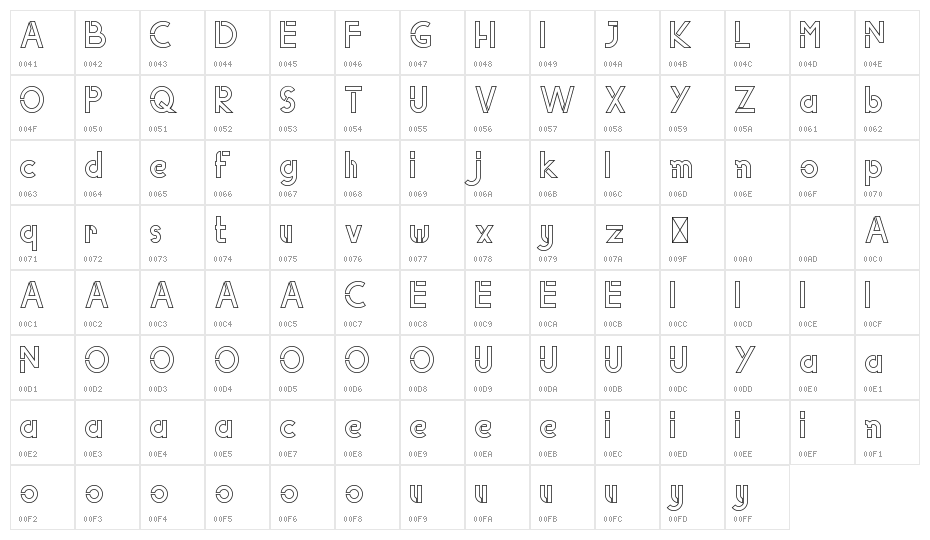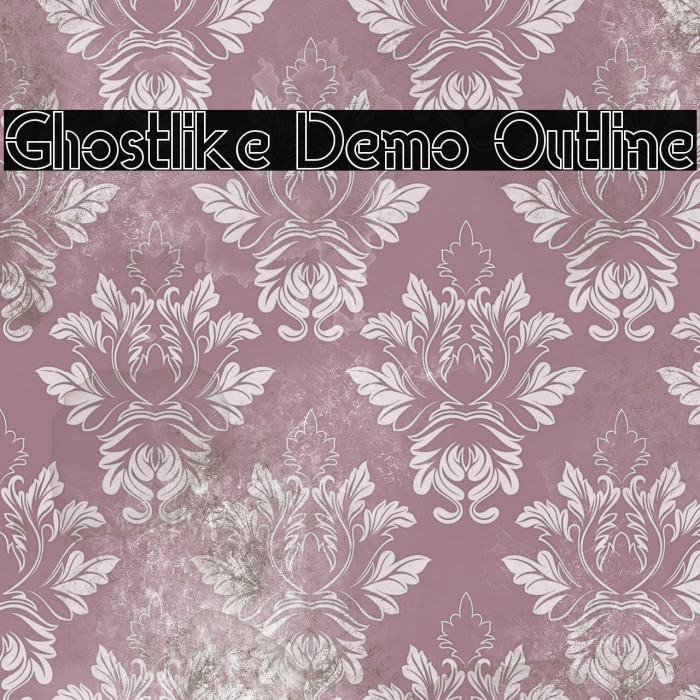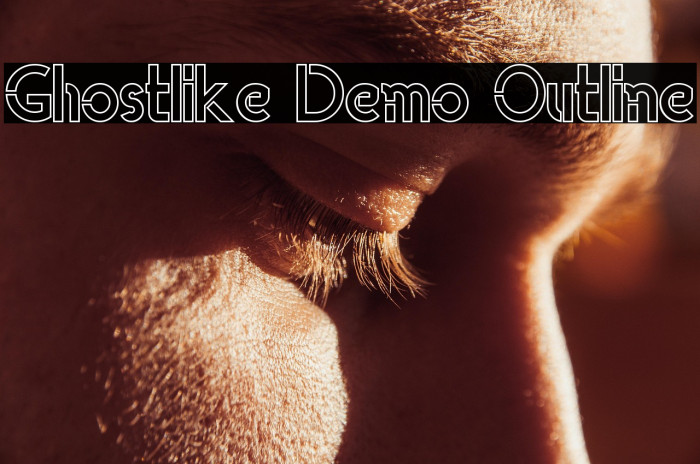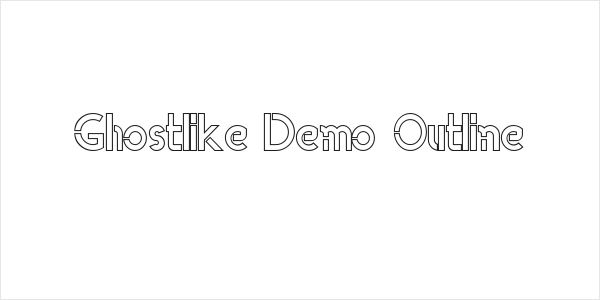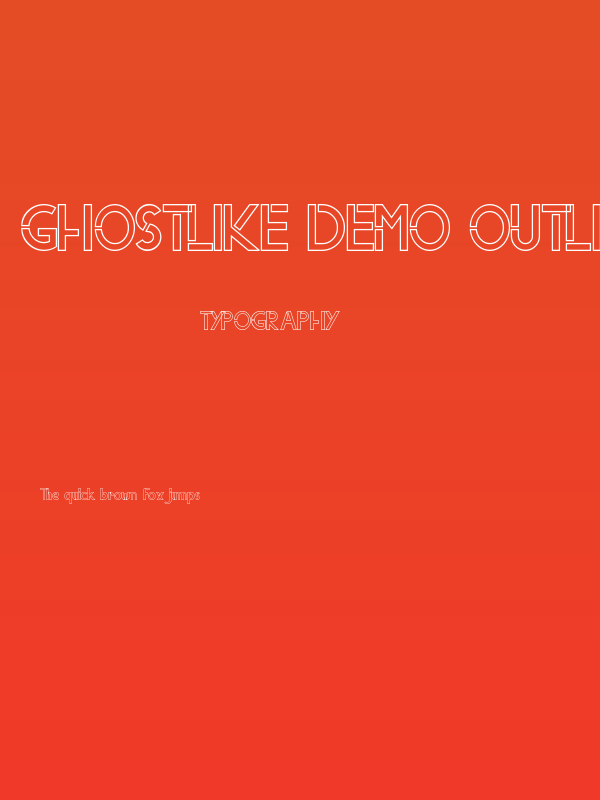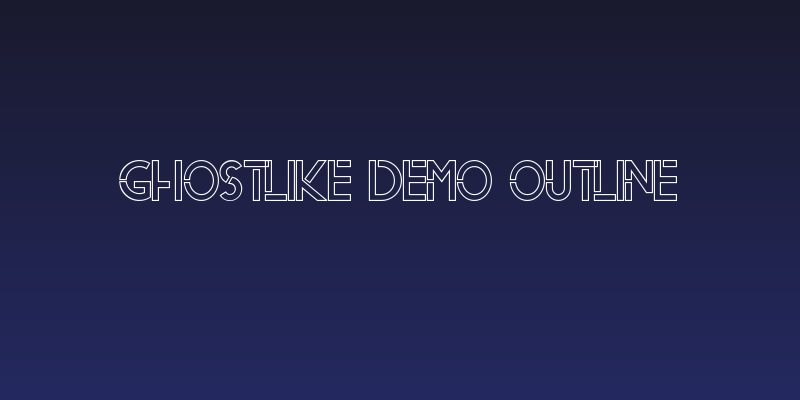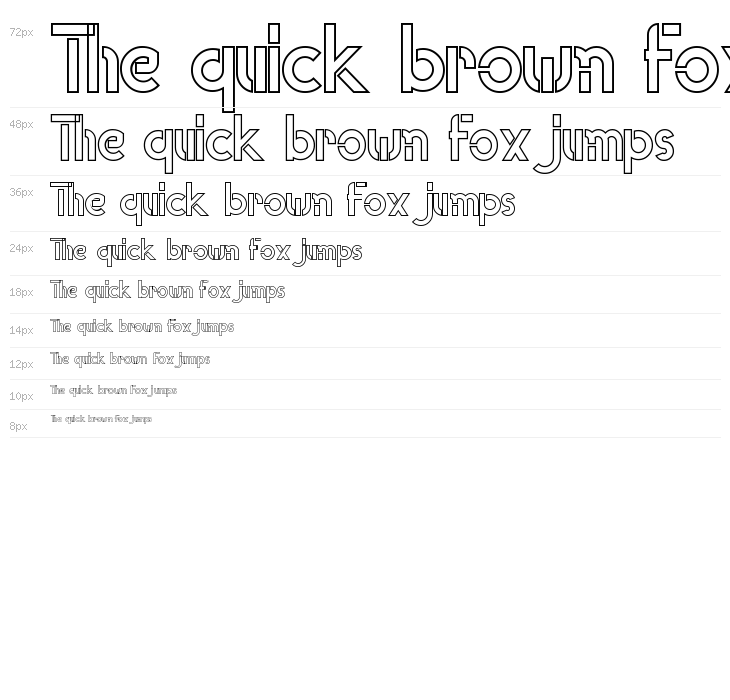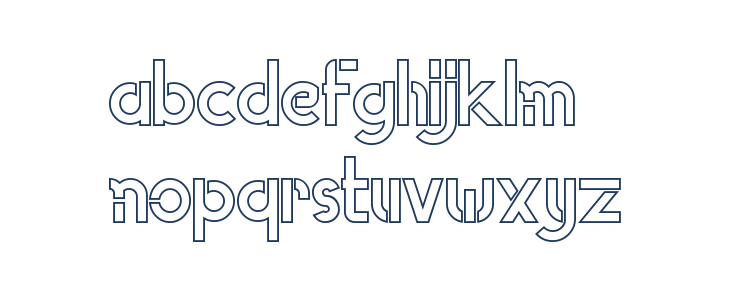
Ghostlike Demo Outline Font
Ghostlike Demo Outline Description
This font features a unique outline style that gives it a modern and futuristic appearance. The characters are formed with clean, geometric lines, creating a sense of transparency and lightness. The uppercase and lowercase letters maintain a consistent design, with a focus on symmetry and balance. The font's outline nature makes it stand out, providing a distinct visual appeal that is both stylish and contemporary. It is well-suited for creative projects where a bold statement is desired, yet it retains a level of sophistication due to its precise line work. The font's design is versatile, making it suitable for various applications, from digital media to print.
| Proposed Projects | Ideal for branding, posters, digital media, and creative projects requiring a modern touch. |